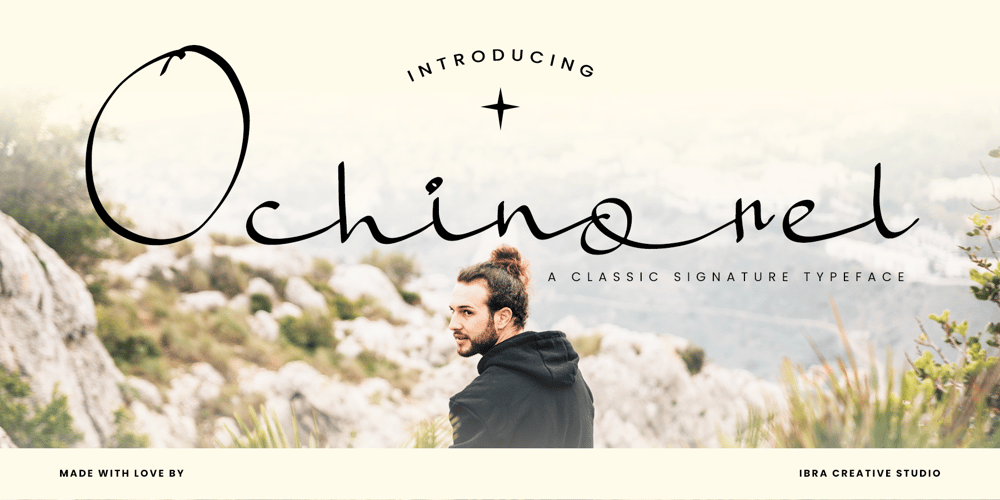
Ochinorel Font Family was designed by Roisatul Azizah and published by IbraCreative. Ochinorel contains 1 styles and family package options. Ochinorel – A Classic Signature TypefaceOchinorel, a classic signature typeface, exudes timeless elegance and sophistication, making it a distinctive choice for various design applications. Its gracefully crafted letterforms boast fluidity and a sense of hand-crafted authenticity, reminiscent of a bespoke signature. Ochinorel effortlessly strikes a balance between traditional charm and contemporary design, allowing it to add a touch of refinement to invitations, logos, and branding materials. The typeface’s cursive strokes and balanced proportions create a harmonious visual appeal, evoking a sense of personal touch and exclusivity. With its versatile and enduring aesthetic, Ochinorel stands as a testament to the enduring allure of classic design in the realm of typography.Ochinorel is perfect for branding projects, logo, wedding designs, social media posts, advertisements, product packaging, product designs, label, photography, watermark, invitation, stationery, game, fashion and any projects.Fonts include multilingual support for; Afrikaans, Albanian, Czech, Danish, Dutch, English, Estonian, Finnish, French, German, Hungarian, Italian, Latvian, Lithuanian, Norwegian, Polish, Portuguese, Slovak, Slovenian, Spanish, Swedish.